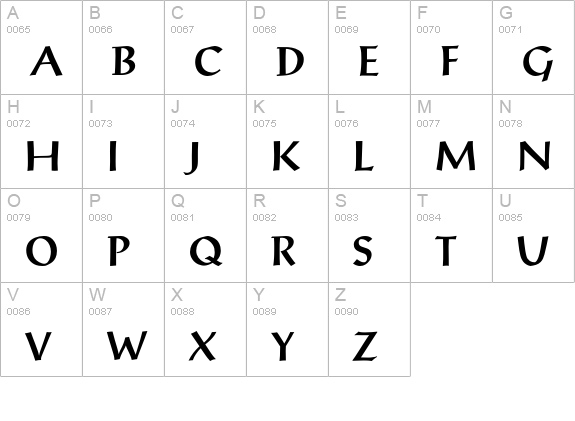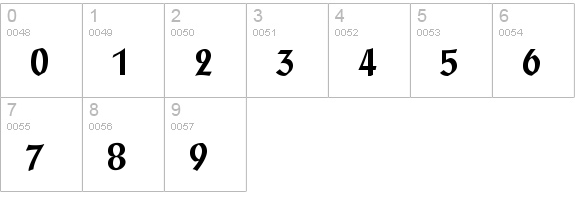
Post-Antiqua R Font Details
Post-Antiqua R is a timeless and elegant serif font that exudes sophistication and class. Its refined curves and intricate details make it a perfect choice for projects that require a touch of old-world charm. The Post-Antiqua R font strikes the perfect balance between traditional and modern, making it versatile for a wide range of design applications. What makes Post-Antiqua R even more appealing is that it is completely free to download at FontsMarket.com. This means that you can access this exquisite font without any cost, making it an invaluable resource for designers, creatives, and anyone looking to add a touch of sophistication to their projects. Whether you are working on a branding project, editorial design, or any other creative endeavor, Post-Antiqua R is sure to elevate your work with its timeless aesthetic and classic appeal. Download this stunning font for free today and experience the beauty and versatility of Post-Antiqua R for yourself.